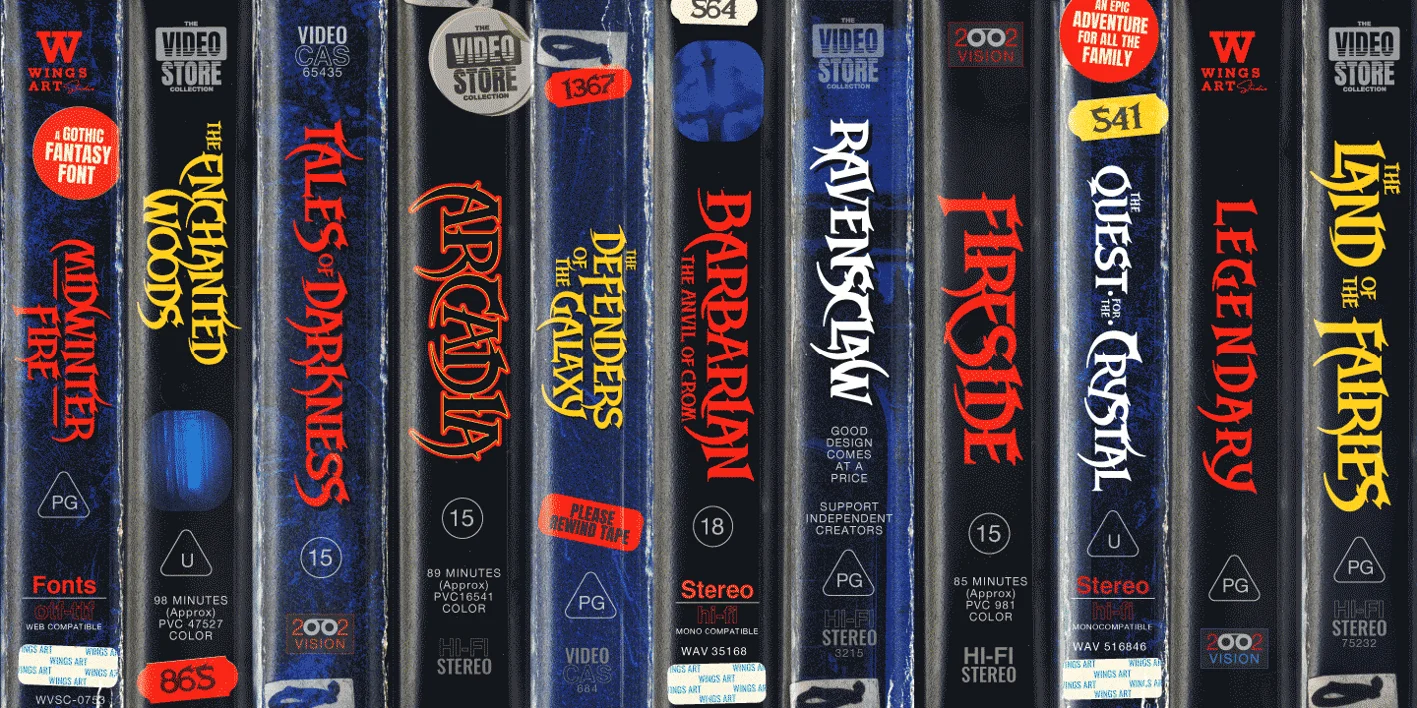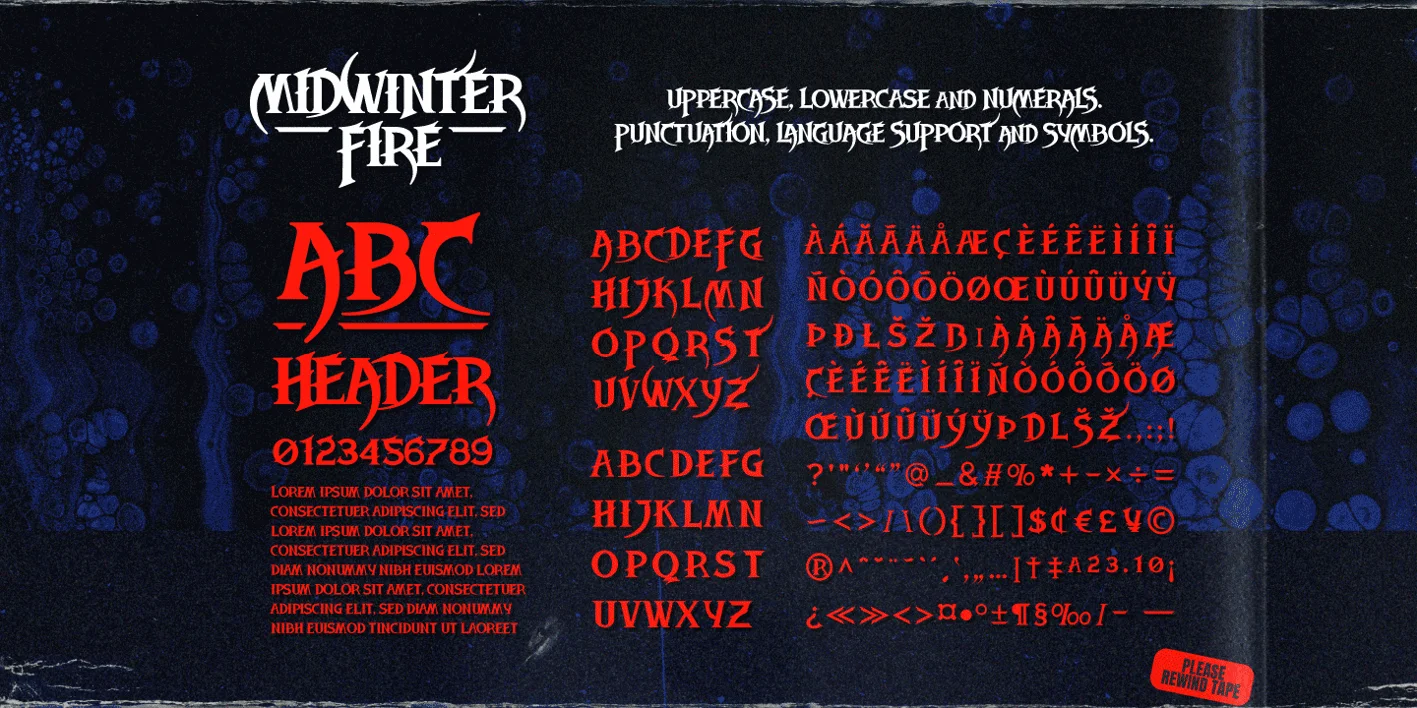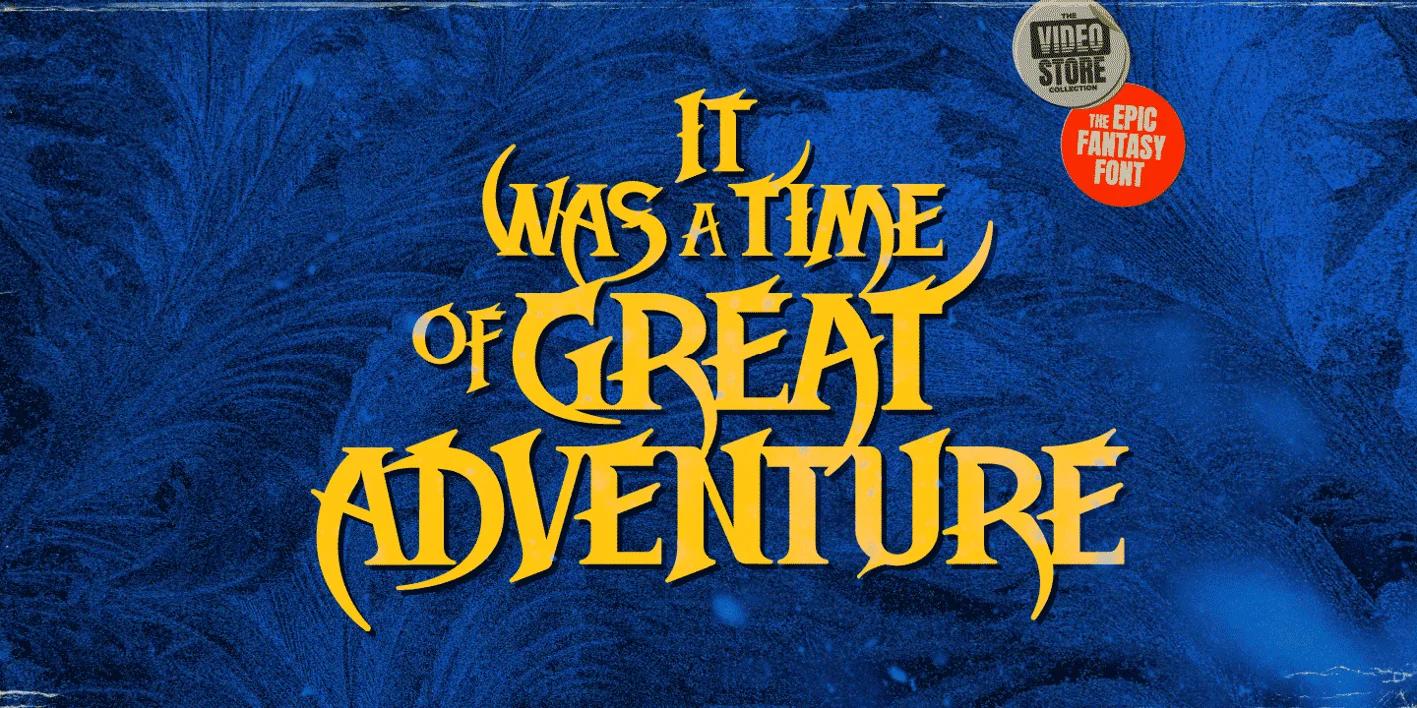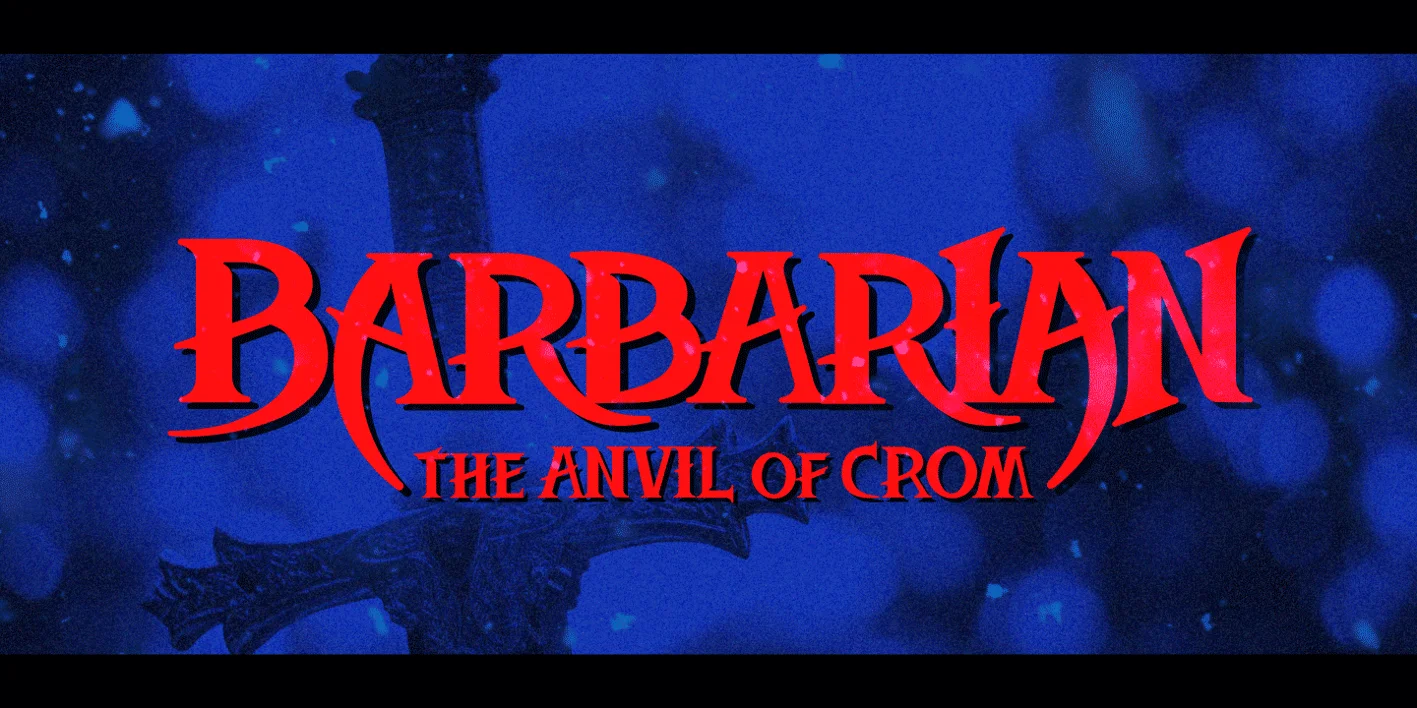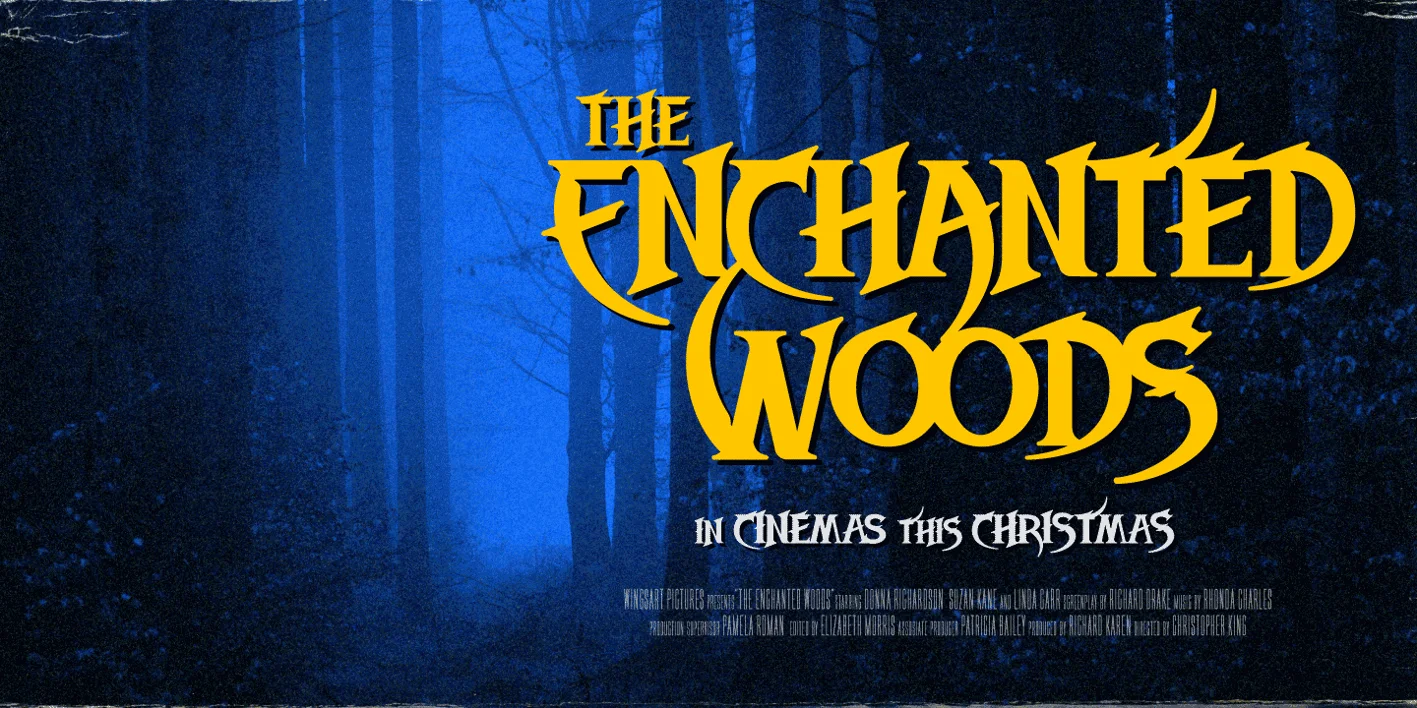
Midwinter Fire Font
There is a particular satisfaction in finding a typeface that delivers the kind of restraint that lets content lead without compromise. Midwinter Fire consistently provides it. The typeface brings a versatile sensibility to a broad range of creative disciplines, with controlled contrast that rewards close inspection that holds up whether the work is print-first or screen-first.
In practice, Midwinter Fire proves particularly effective for packaging design, advertising campaigns, brand identity systems, social media graphics, signage systems. Designers reaching for it find that the type decisions feel resolved rather than laboured — a useful quality when client timelines are tight.
The range of applications extends to logo design, editorial layouts, web design, product labels. That breadth is deliberate: the proportions and spacing were stress-tested across a wide range of mock briefs before the typeface was finalised.
At smaller sizes the design retains its character without becoming cluttered. This resilience across scales makes Midwinter Fire equally suitable for a business card and a billboard — a useful property when assets must scale across a campaign.
Graphic designers working on identity systems find Midwinter Fire a reliable choice for projects that demand both personality and restraint. The design avoids the self-conscious quirkiness that dates quickly, settling instead for considered distinctiveness that holds up over time.